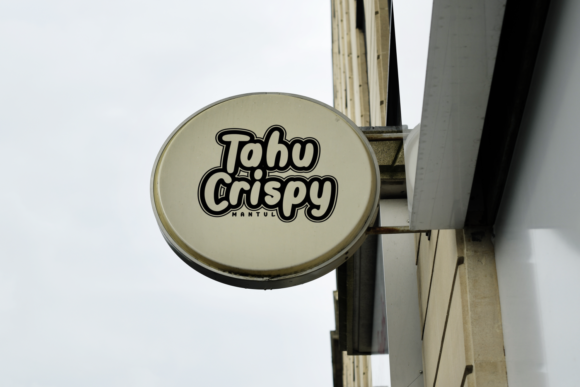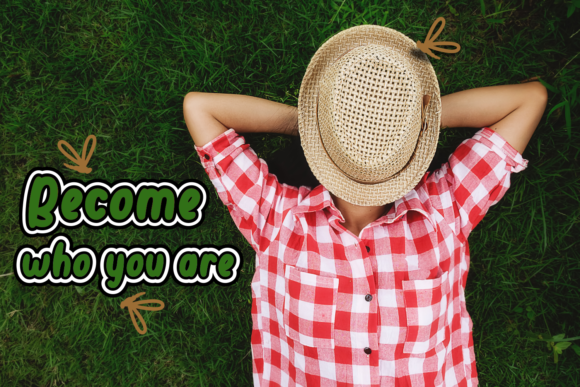
Cappung Font: The Friendly and Chunky Handwritten Font for Your Design Projects
Are you looking for a font that can add a casual and friendly touch to your design projects? Look no further than Cappung Font! This charming handwritten font is designed to bring a simple yet charming vibe to your designs, making it perfect for a wide range of projects, from crafts and DIY tutorials to social media graphics and more.
What is Cappung Font?
Cappung Font is a unique and carefully crafted handwritten font that boasts a chunky and friendly appearance. Its simple design makes it incredibly versatile, allowing it to be used in a variety of contexts, from formal to informal, and from digital to print. Whether you’re a designer, crafter, or DIY enthusiast, Cappung Font is sure to become a favorite in your collection.
Key Features of Cappung Font
- Chunky and Friendly Design: Cappung Font features a distinctive chunky design that gives it a friendly and approachable feel.
- Simple and Easy to Read: Despite its chunky appearance, Cappung Font is incredibly easy to read, making it perfect for use in body text, headings, and titles.
- Handwritten with Love: Cappung Font is carefully crafted to mimic the look and feel of handwritten text, giving it a personal and human touch.
- Highly Versatile: Cappung Font can be used in a wide range of design projects, from digital graphics and social media posts to print materials and crafts.
Use Cases for Cappung Font
Cappung Font is an incredibly versatile font that can be used in a variety of design projects, including:
- Crafts and DIY Tutorials: Add a personal touch to your craft and DIY tutorials with Cappung Font’s friendly and approachable design.
- Social Media Graphics: Use Cappung Font to create eye-catching social media graphics that are sure to grab attention.
- Print Materials: Cappung Font is perfect for use in print materials, such as brochures, flyers, and posters.
- Web Design: Add a touch of personality to your website with Cappung Font’s unique and charming design.
Why Choose Cappung Font?
So why choose Cappung Font for your design projects? Here are just a few reasons:
- Unique and Eye-Catching Design: Cappung Font features a distinctive and eye-catching design that’s sure to grab attention.
- Easy to Read and Use: Despite its chunky appearance, Cappung Font is incredibly easy to read and use, making it perfect for a wide range of design projects.
- Highly Versatile: Cappung Font can be used in a wide range of design projects, from digital graphics to print materials.
- Carefully Crafted with Love: Cappung Font is carefully crafted to mimic the look and feel of handwritten text, giving it a personal and human touch.
Whether you’re a designer, crafter, or DIY enthusiast, Cappung Font is the perfect choice for any design project. Its unique and eye-catching design, ease of use, and versatility make it an essential tool for anyone looking to add a touch of personality to their designs.